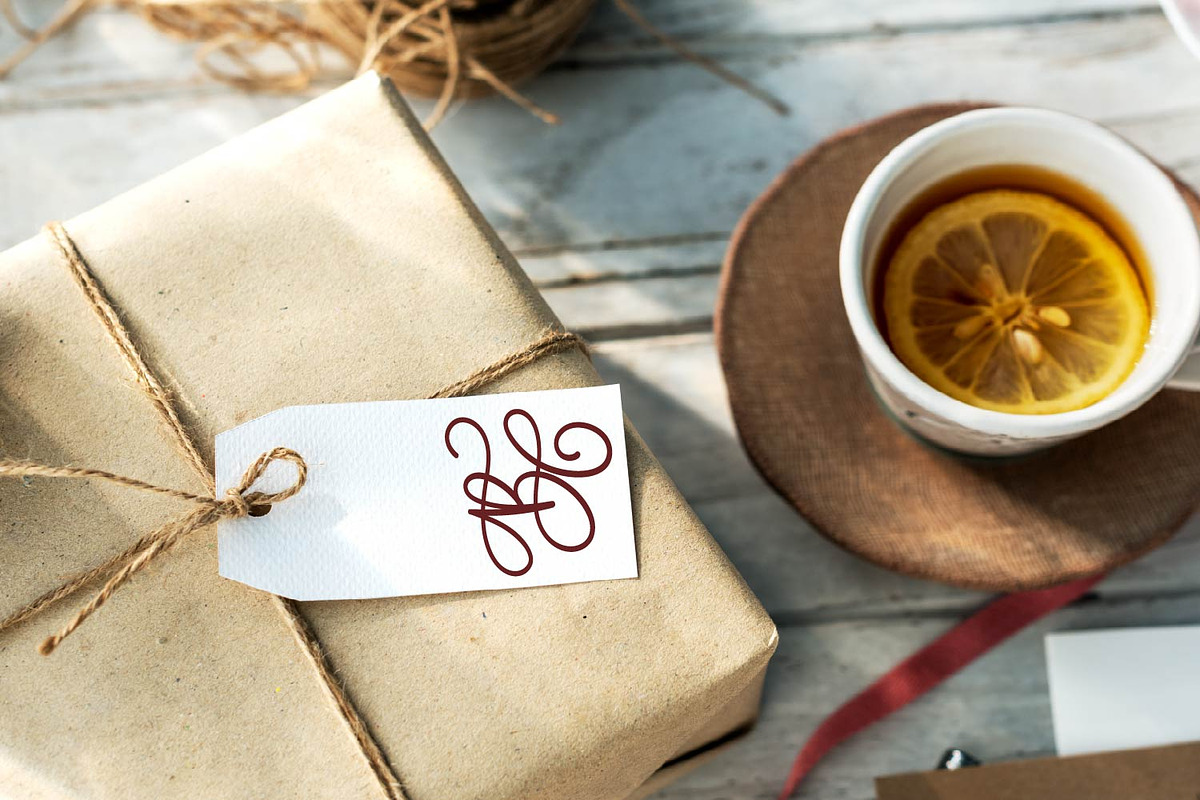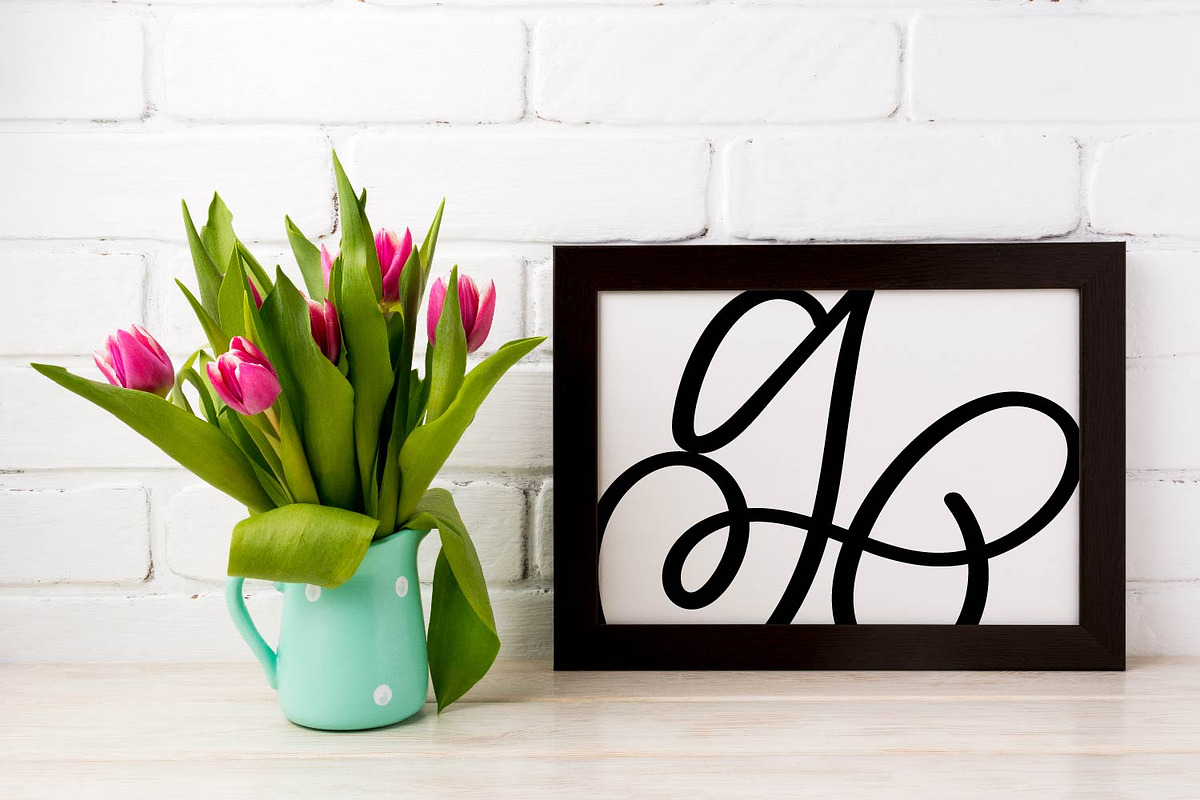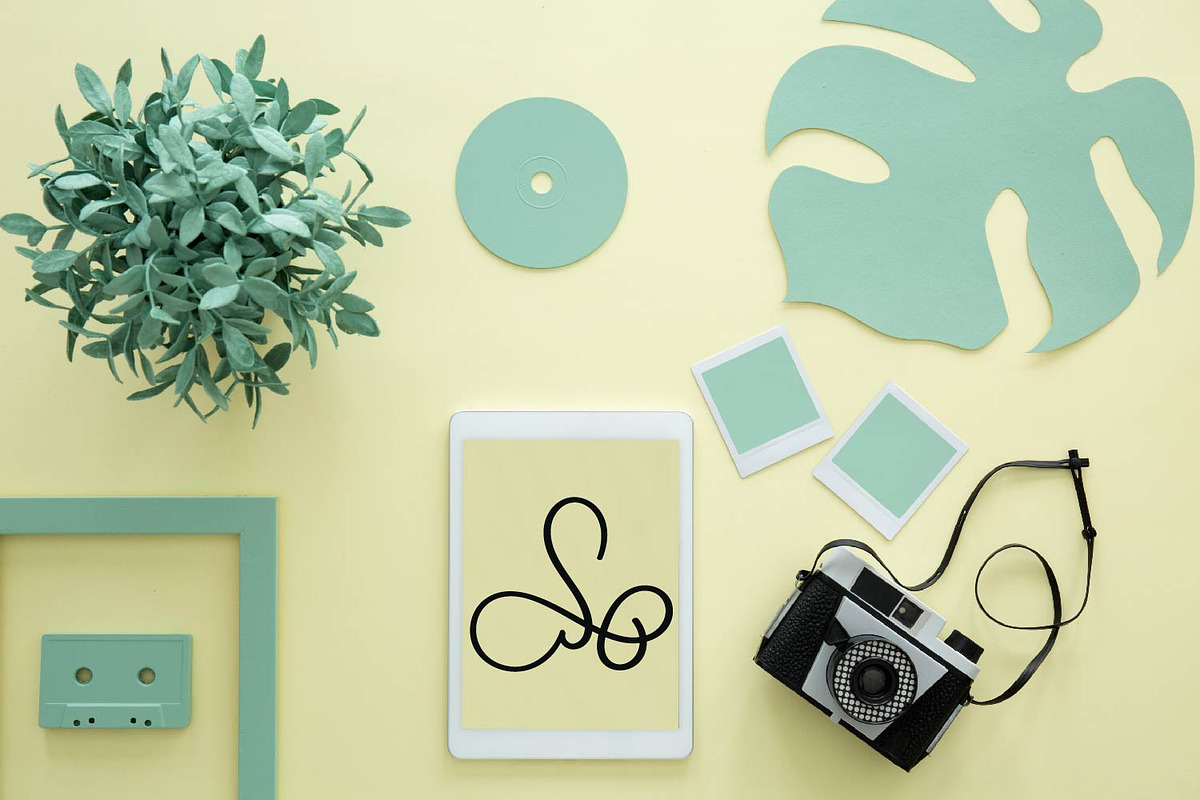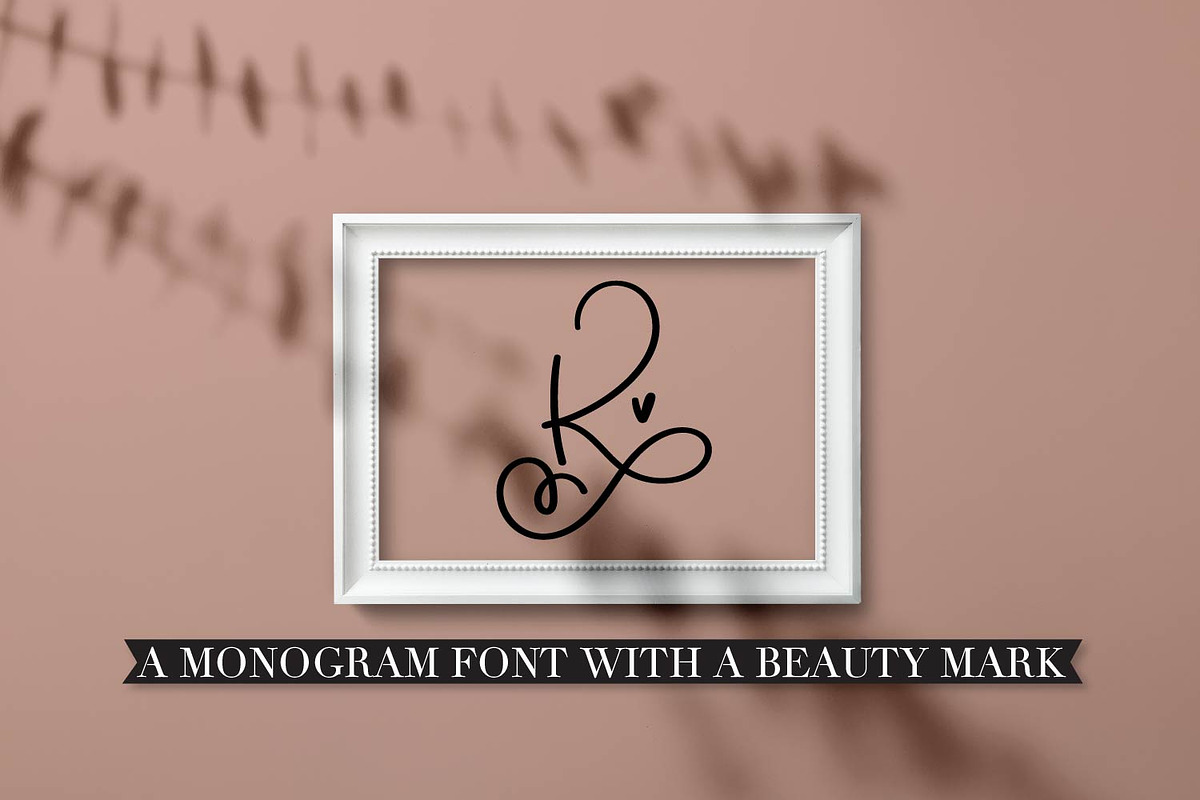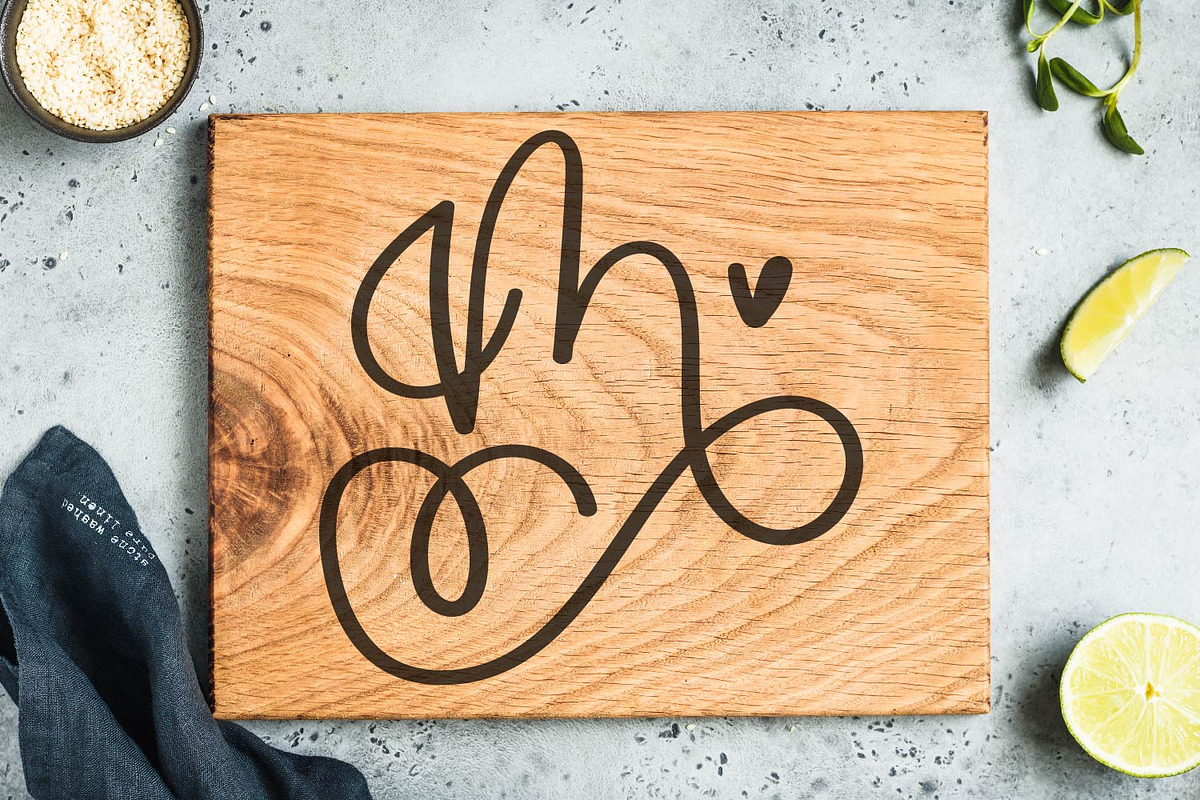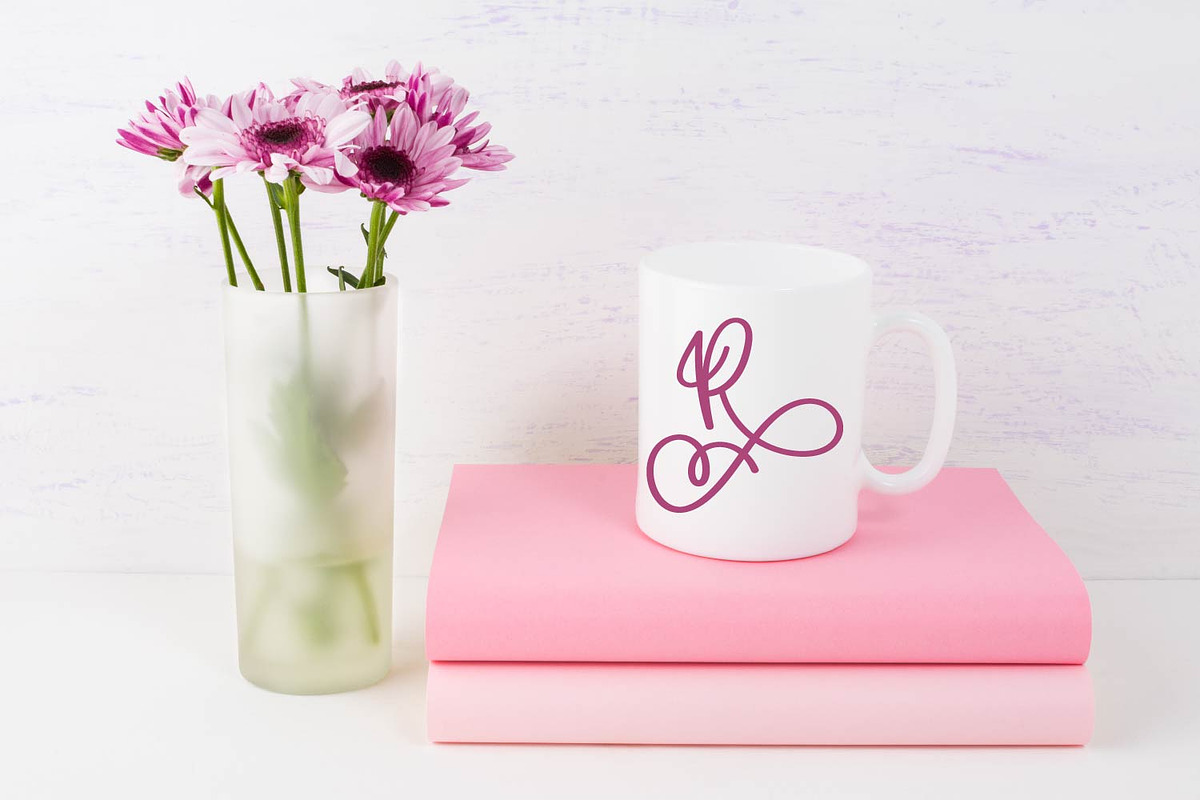
Scripty Monogram Font - With hearts
Scripty Monogram Font With Hearts by CraftyLittleNodes is a font selected for branding, posters, packaging, typography.
Scripty Monogram Font - With hearts by CraftyLittleNodes fits naturally into Branding, posters, packaging, typography.